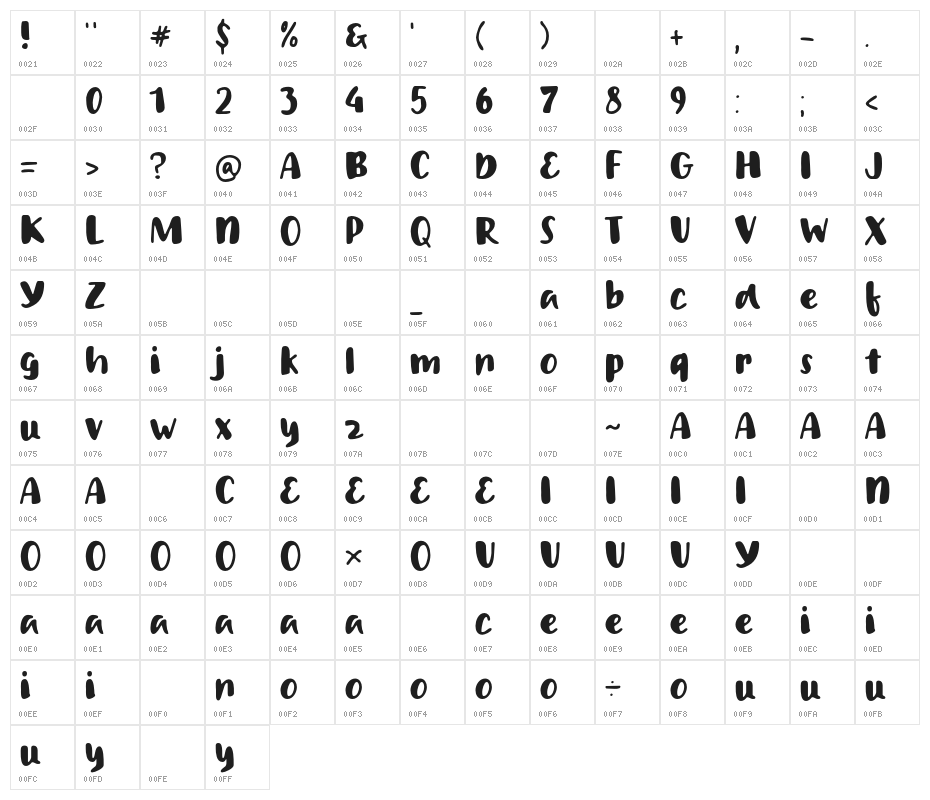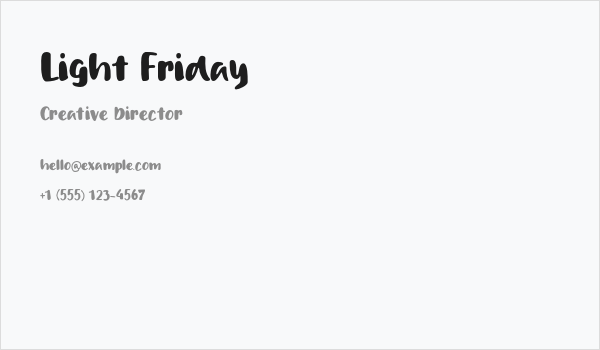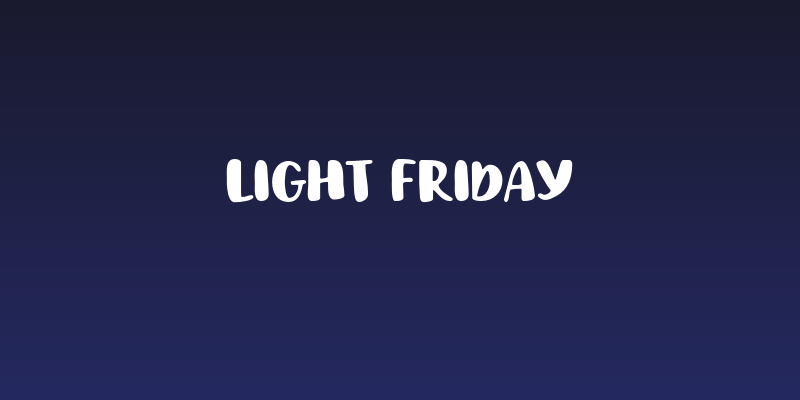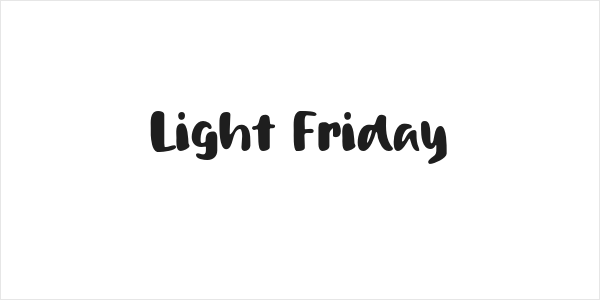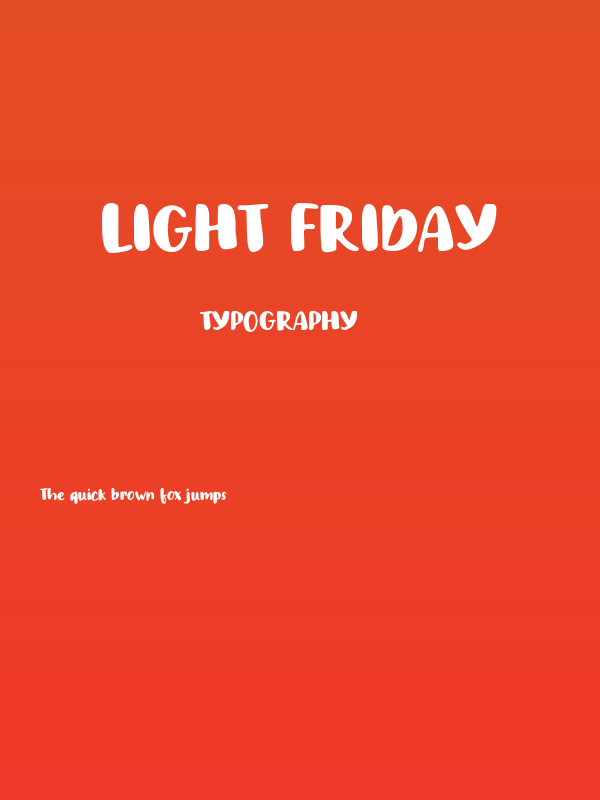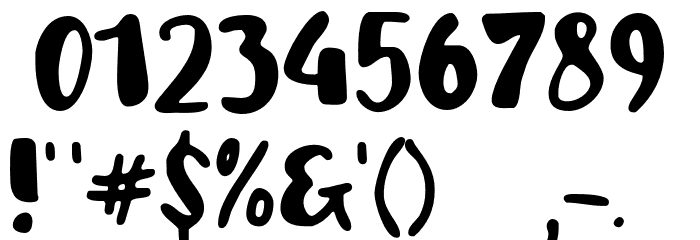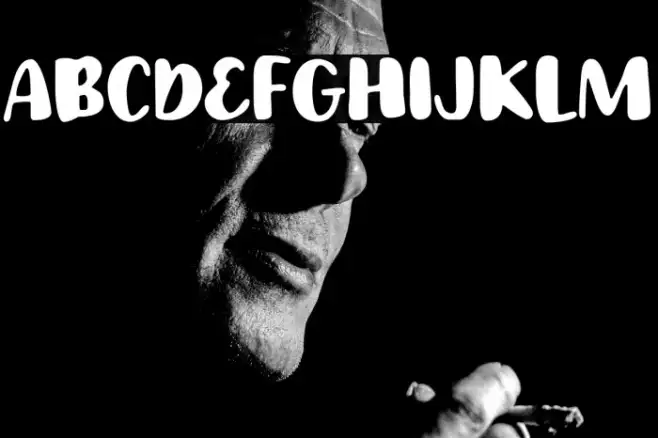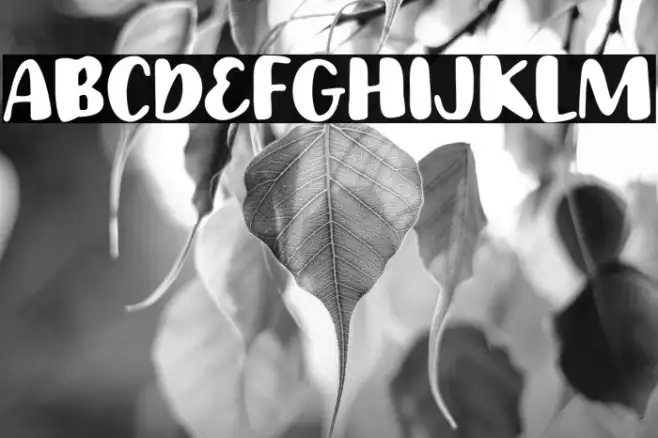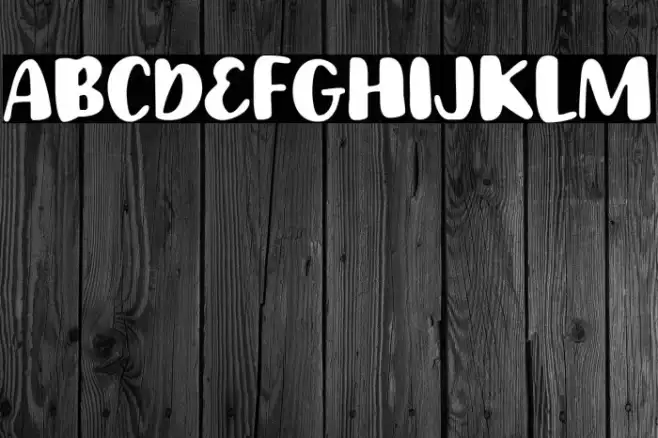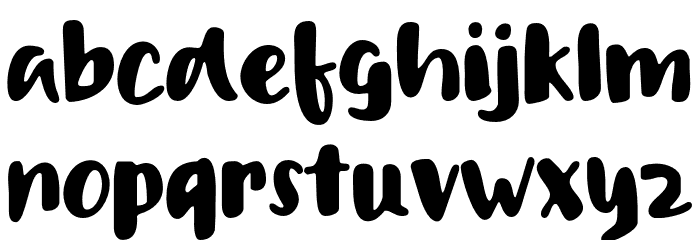
Light Friday Font
Light Friday Description
This font features a bold and playful style with rounded edges and a hand-drawn appearance. The characters are thick and have a consistent weight throughout, giving them a strong presence. The uppercase and lowercase letters maintain a uniform style, while the numbers and special characters complement the overall look. The font's whimsical nature makes it suitable for creative and informal applications. It has a friendly and approachable feel, making it ideal for projects that require a touch of personality and flair.
| Proposed Projects | Ideal for children's books, playful branding, greeting cards, and creative posters. |